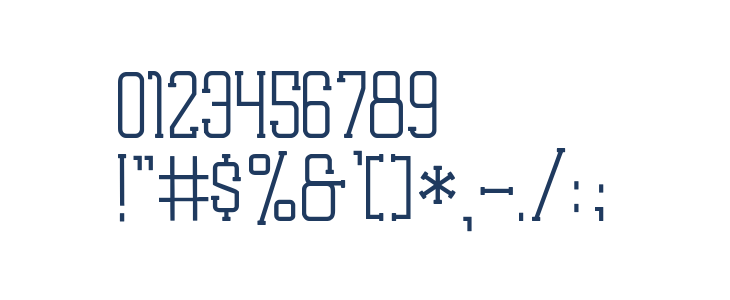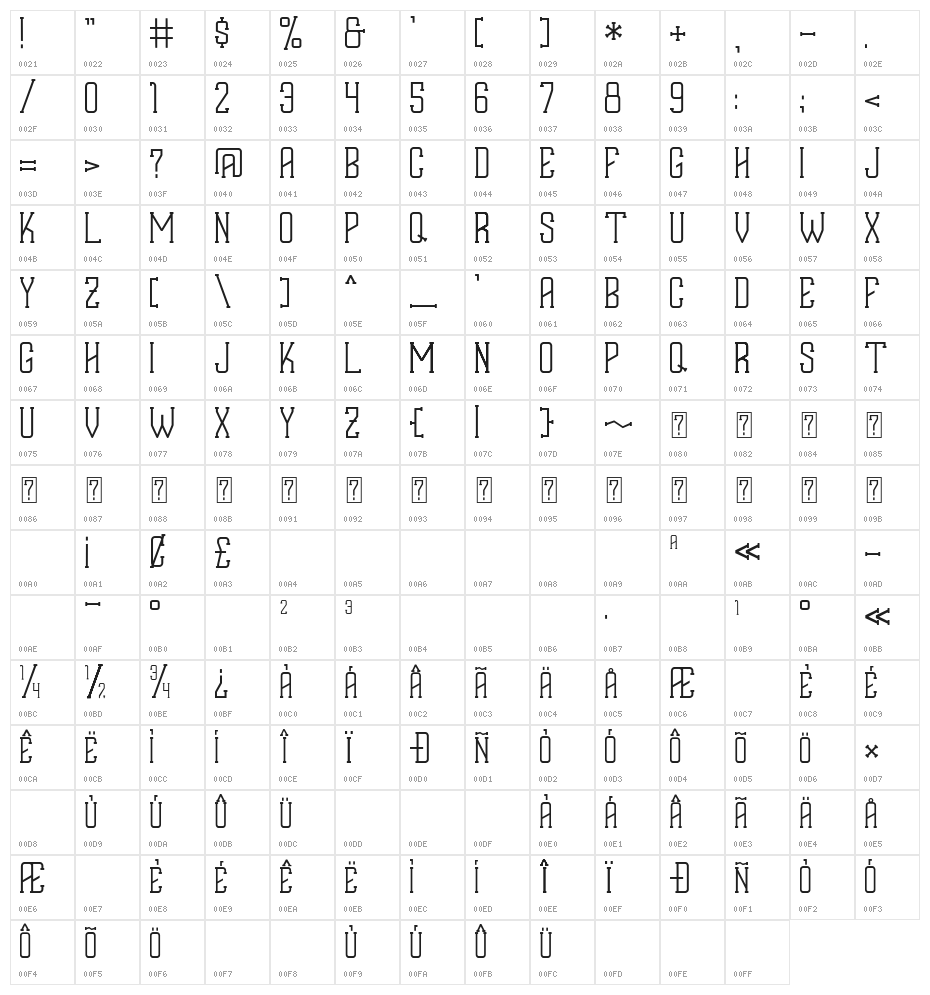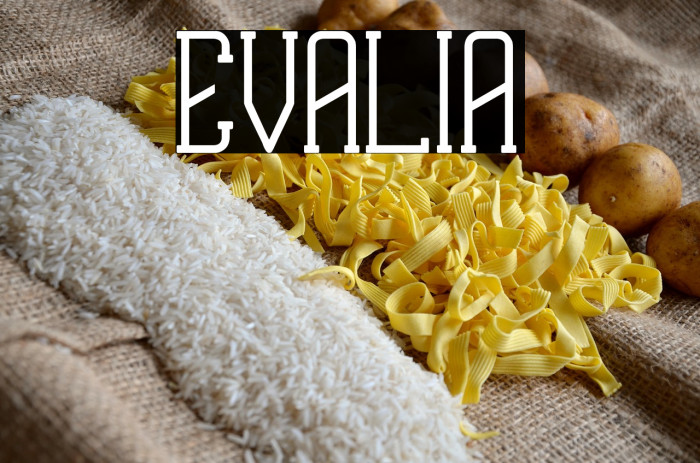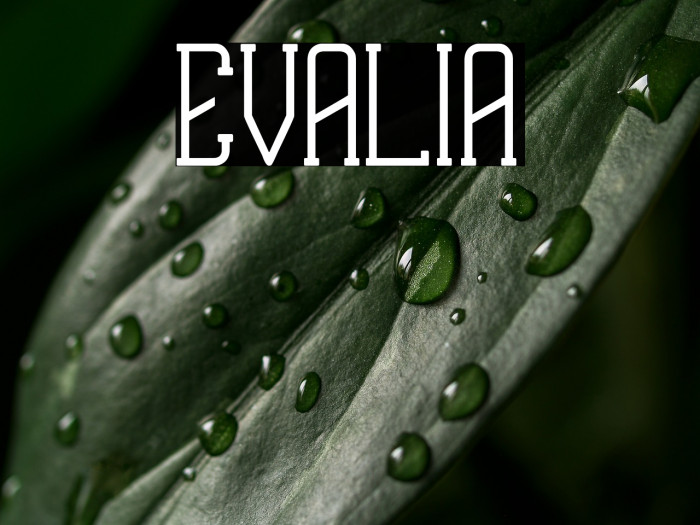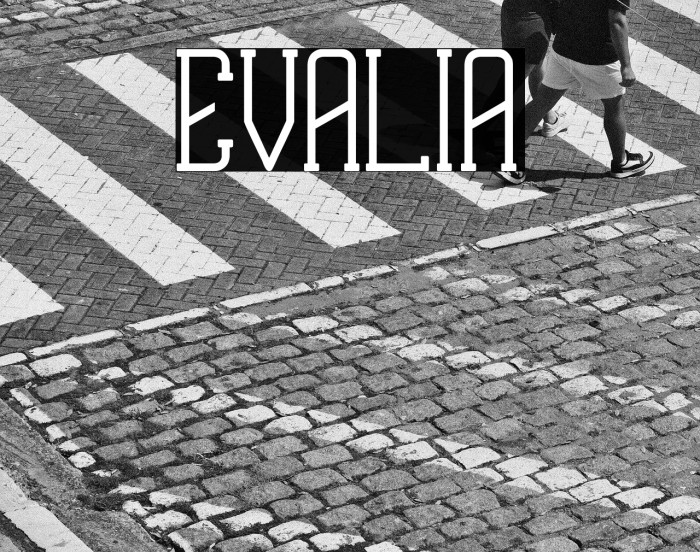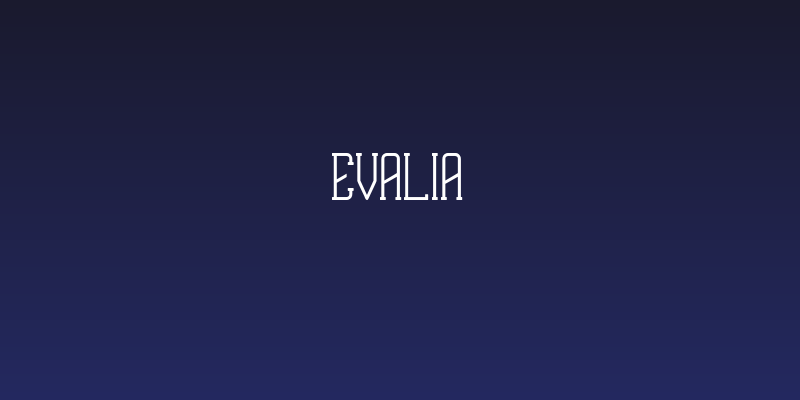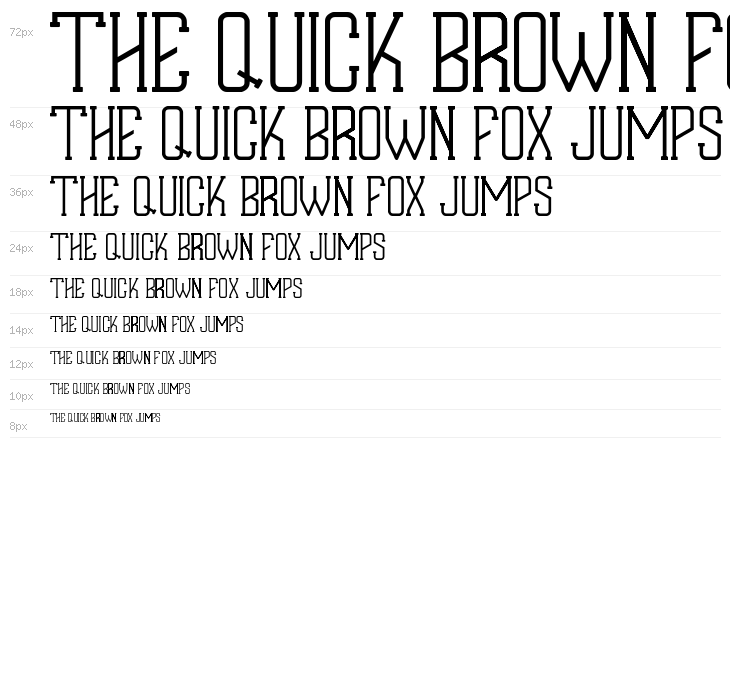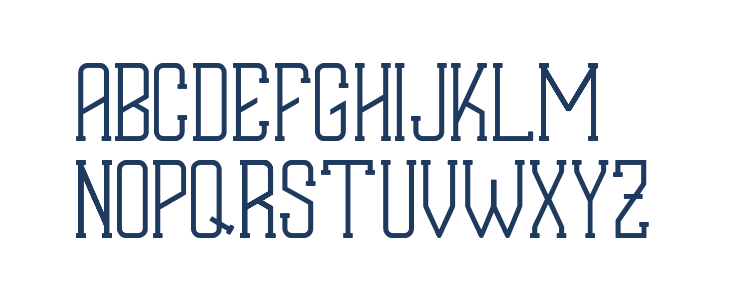
EVALIA Font
| Stile generale | Modern, Industrial |
| Progetti proposti | Ideal for technical manuals, industrial design projects, branding for tech companies, and modern posters. |